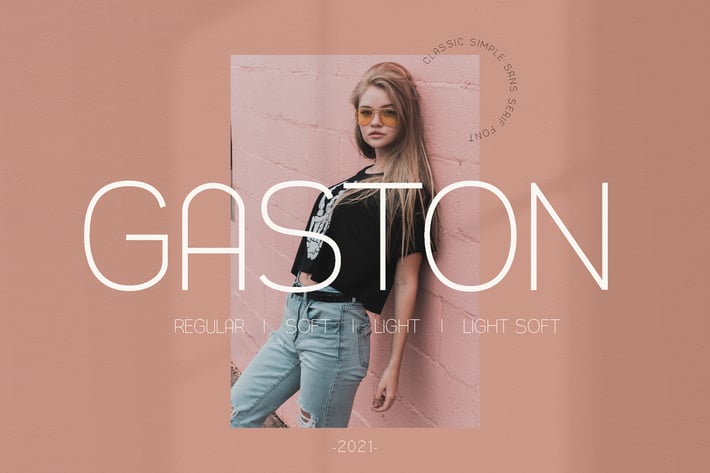
GASTON modern instagram Font
GASTON is slim sans serif font. It is the best font for instagram business. It also can easily be matched to an incredibly large set of projects like logo, package, advertisement, magazine, , so add it to your creative ideas and notice how it makes them stand out!